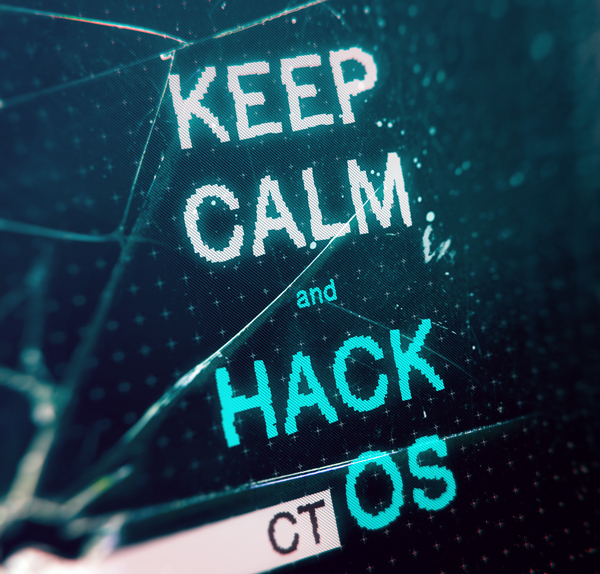
AblockyFont
Here is a blocky font.
I was inspired by the game "Watch_Dogs" for this font.
It's a good font to use for technological themes.
Voici une police avec un aspect "blocky".
J'ai t inspir par le jeu "Watch_Dogs" pour cette police.
C'est une bonne typo utiliser pour les thmes en rapport avec la technologie.